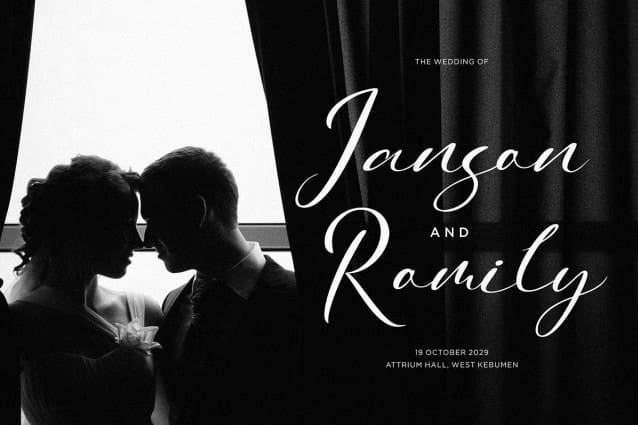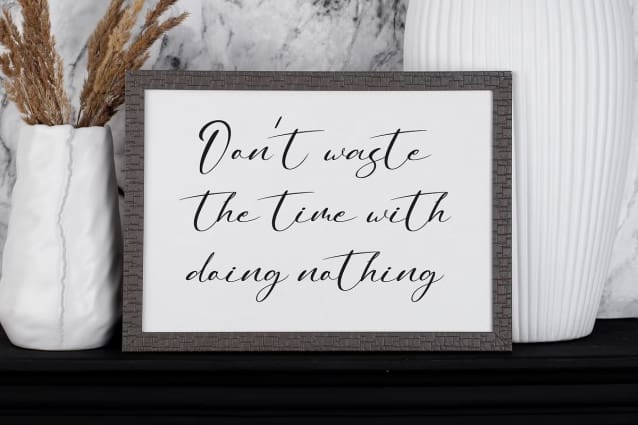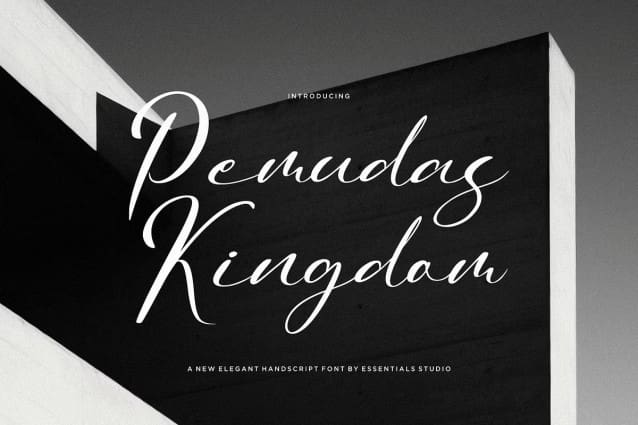
Pemudas Kingdom Font
Pemudas Kingdom Font, a captivating script font meticulously crafted by Essentials Studio. With its airy sophistication and artful design, it’s an ideal choice for wedding invitations, serene craft designs, compelling banner creation, or eye-catching branding opportunities. Regardless of the background, Pemudas Kingdom makes an indelible impression with its seamless blend of classic grace and contemporary style.